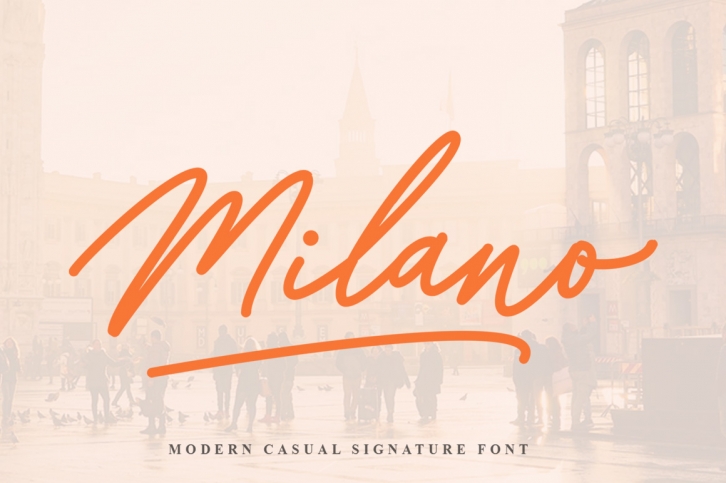
Milano Signature is a trendy and unique font with an authentic style. It was designed by Indotitas and it's a great choice for creative people who need such a font. It was released on September 28, 2019 and the file size is 6.1 MB. Milano Signature will add an organic vibe to any design idea!